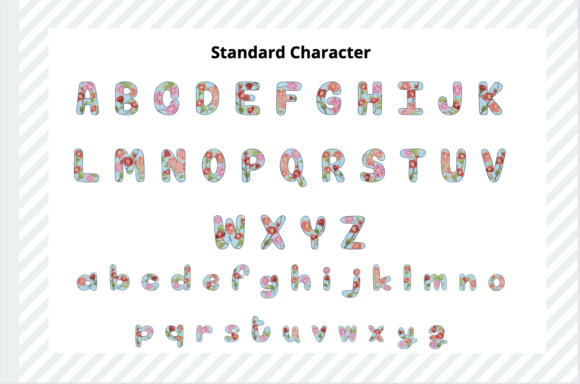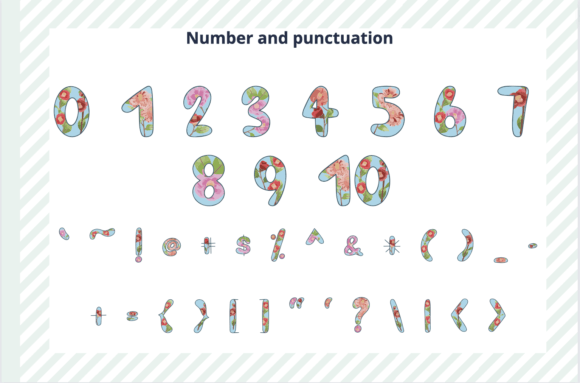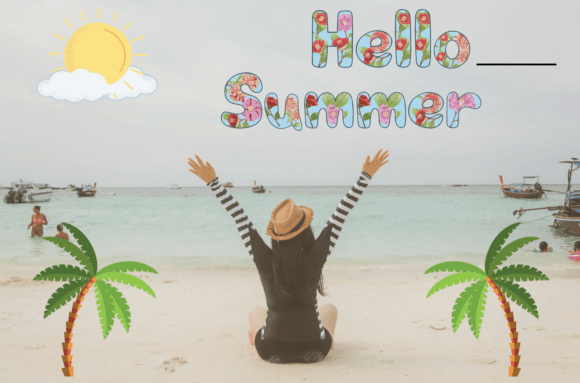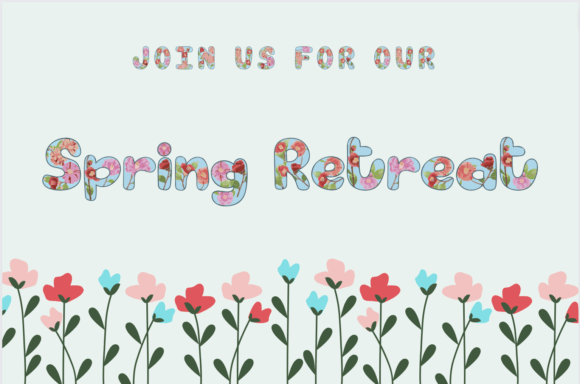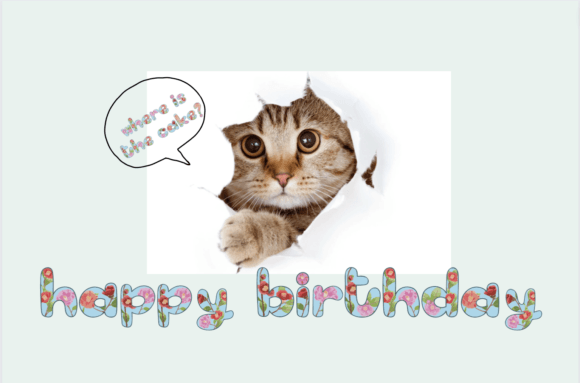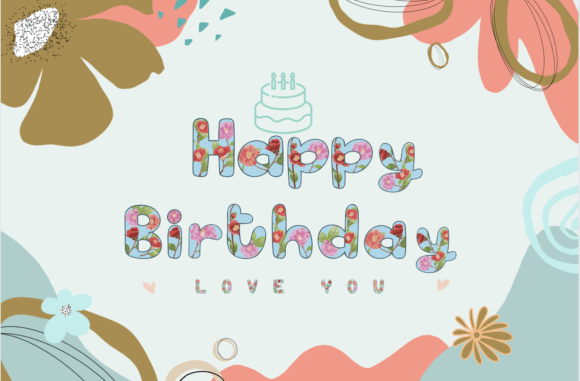
Introduction to Hello Camellia Font
Hello Camellia is a floral color font that brings a touch of nature to your designs.
Featuring beautifully hand-drawn flowers, this font adds a playful and whimsical touch Perfect for greeting cards, invitations, and social media graphics.